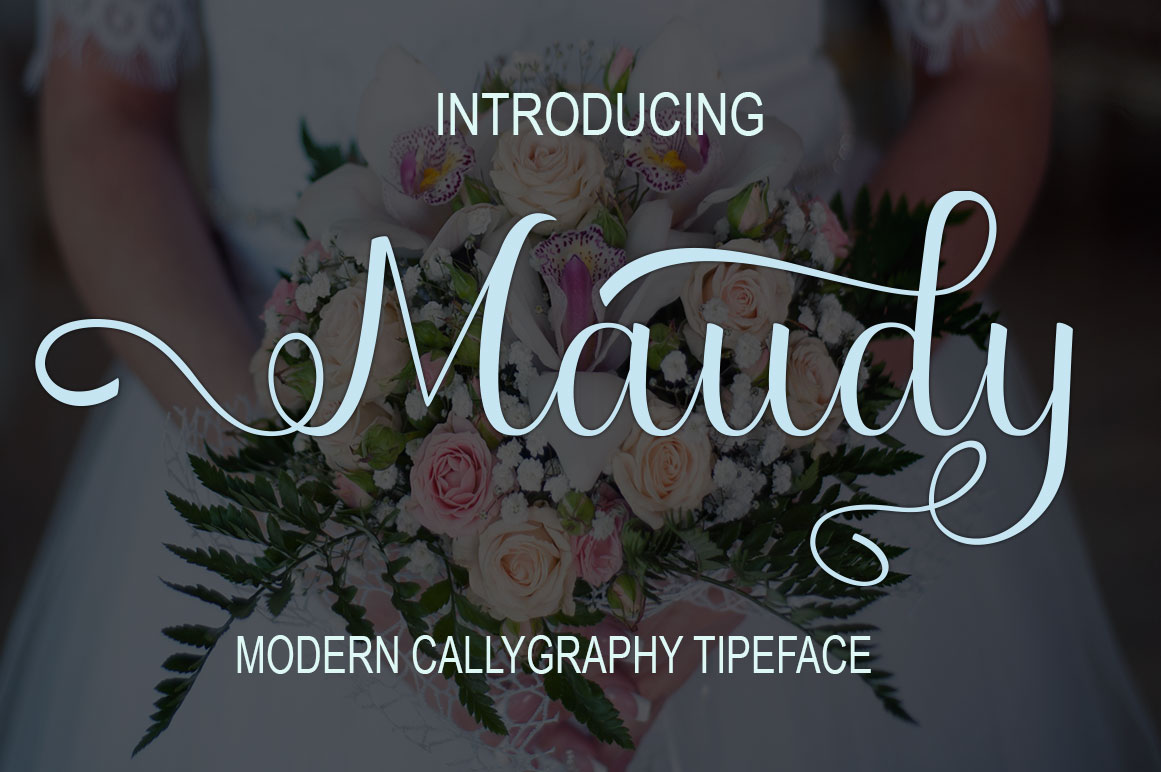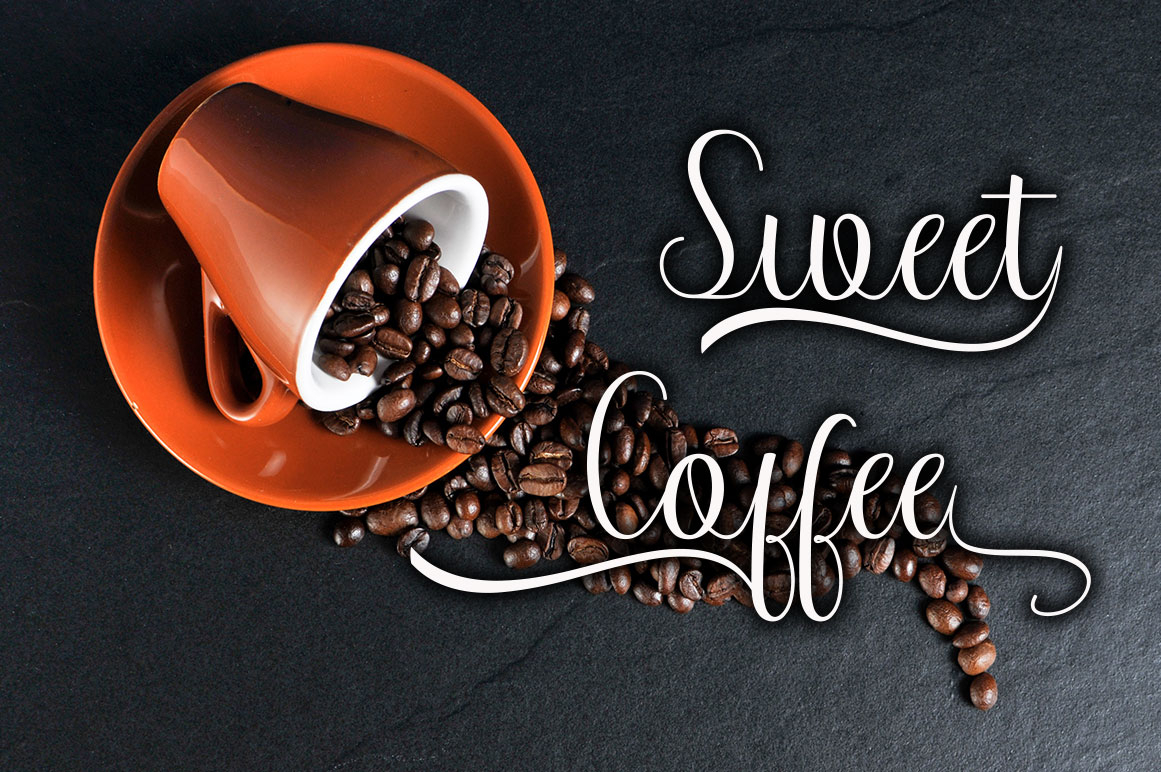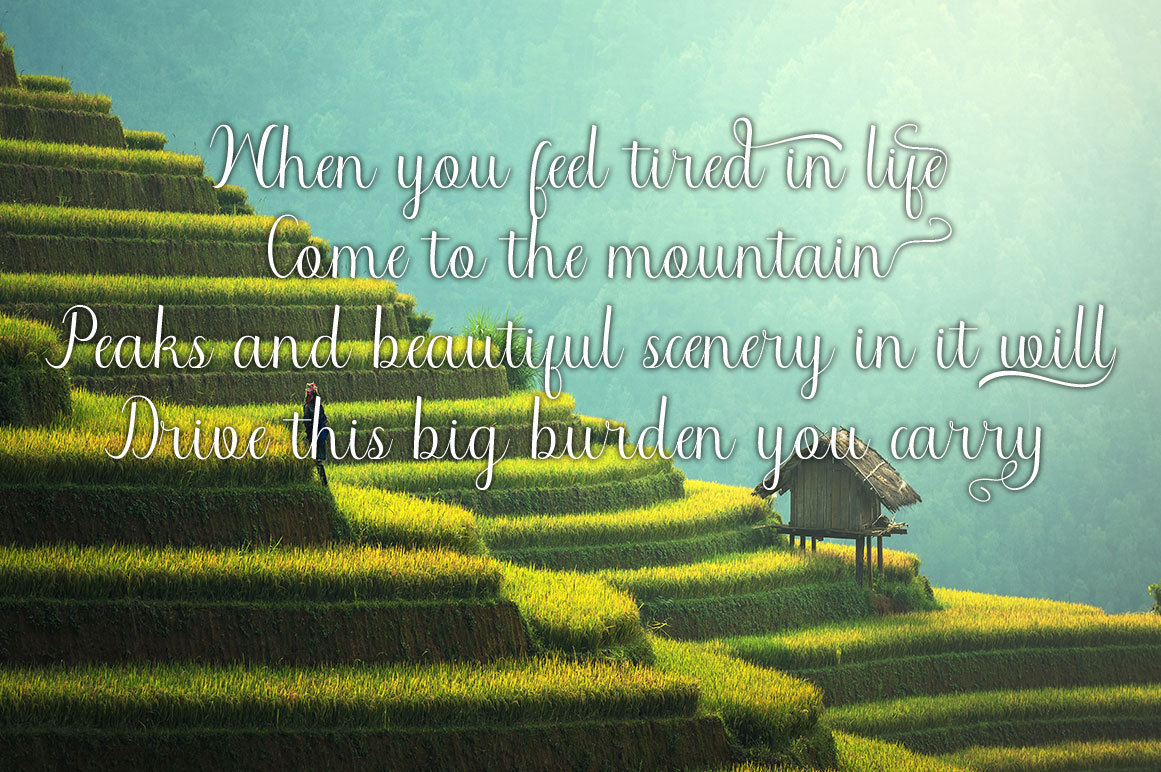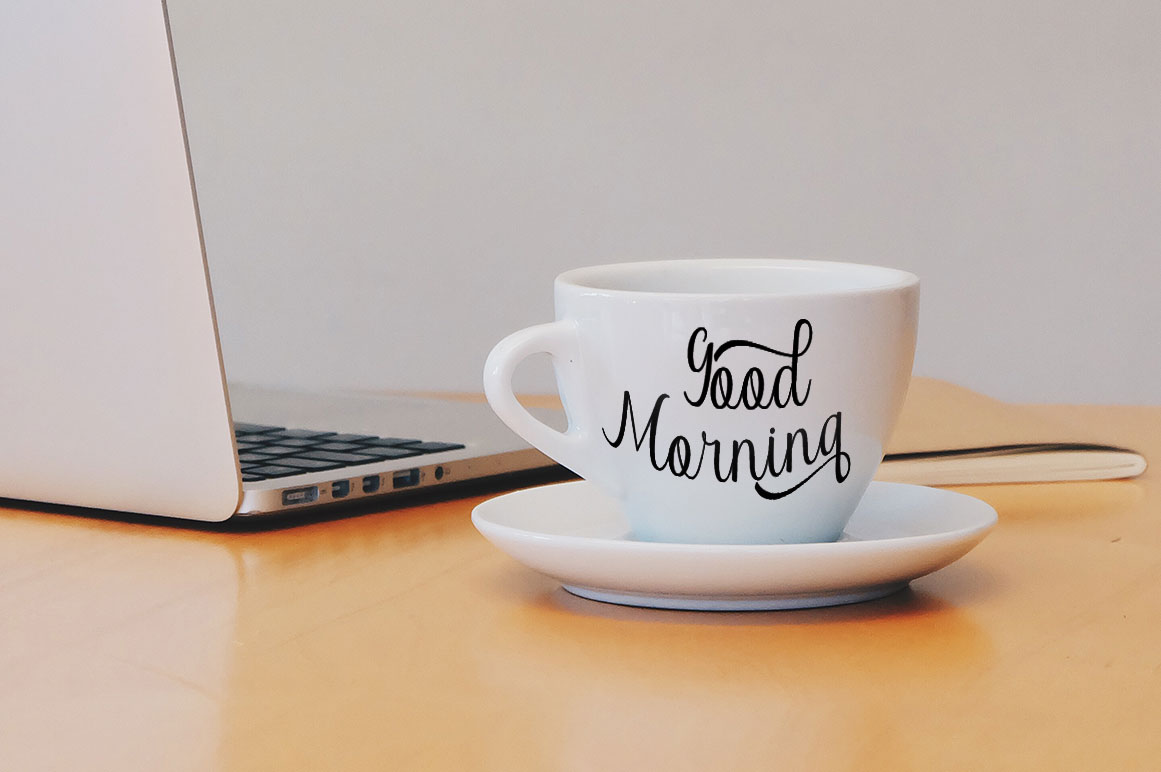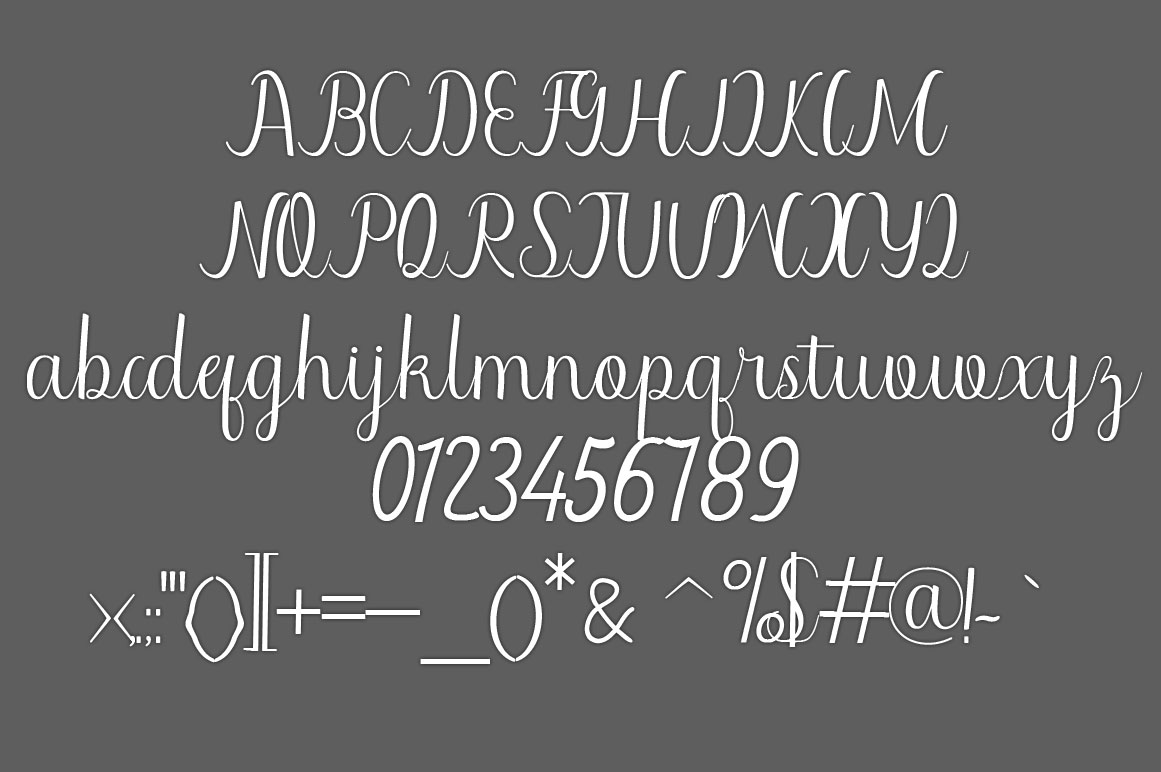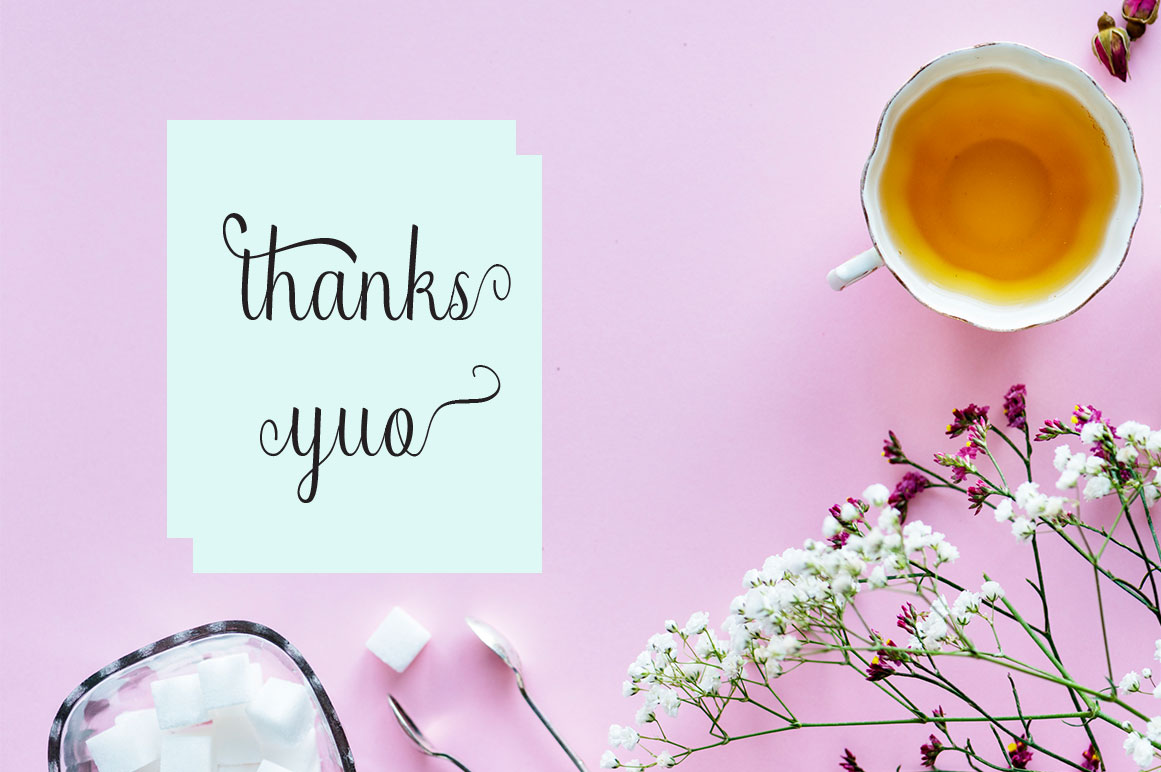
Maudy Font
About Maudy Font
Maudy is a playful handwritten calligraphy font.
It’s created completely by hand and looks good in many different types of projects.